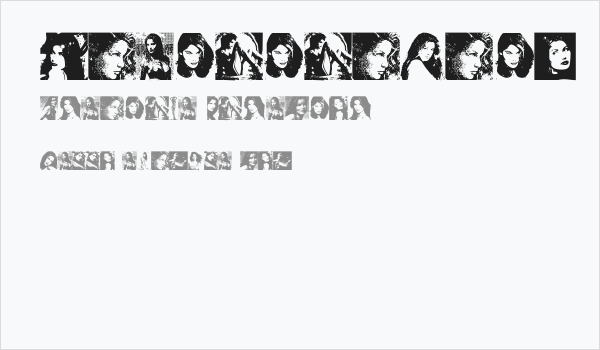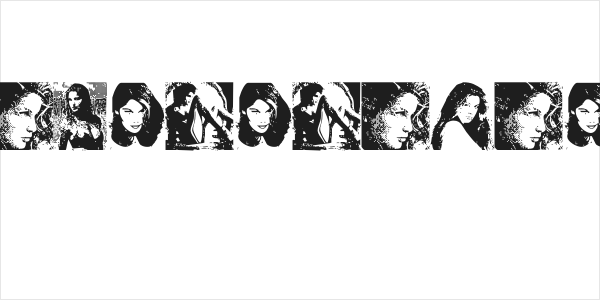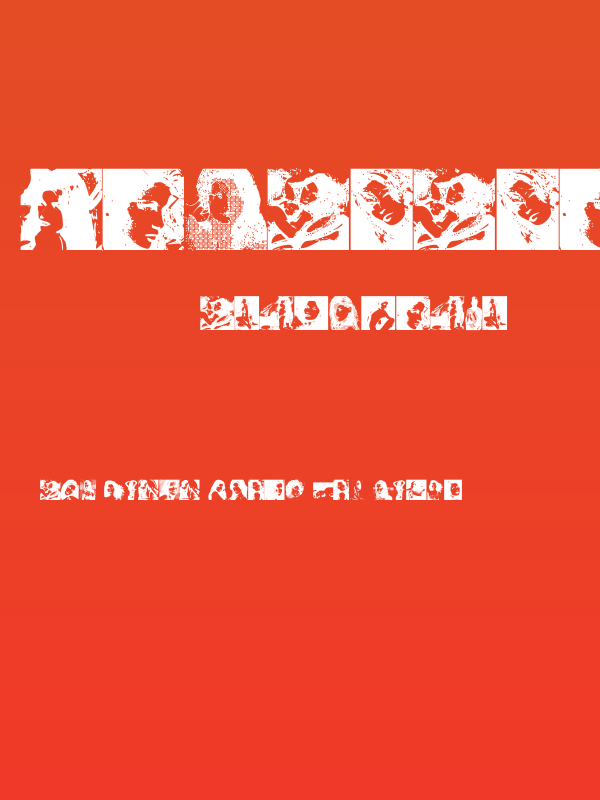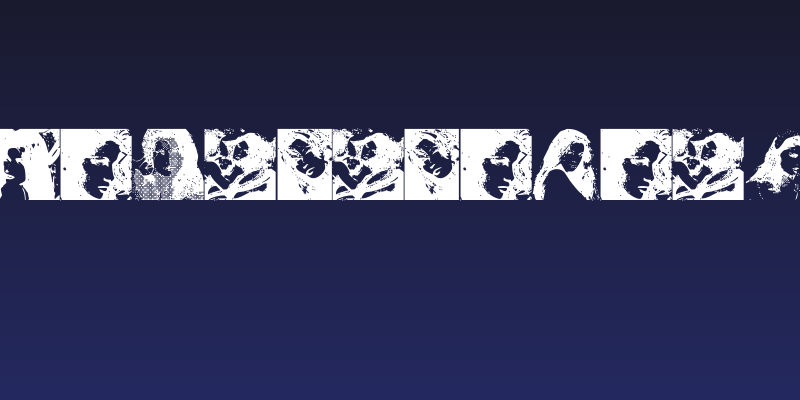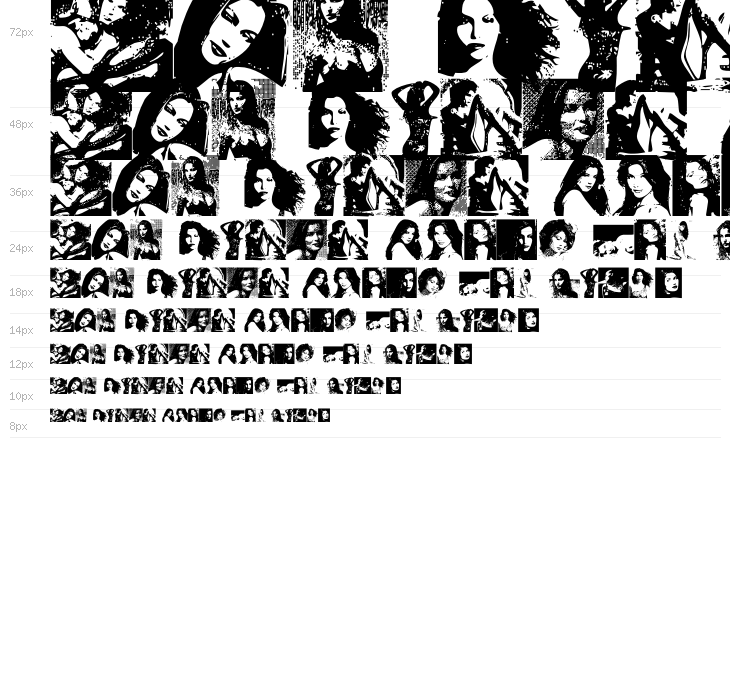
LaetitiaBats Font
LaetitiaBats Description
This font is a highly decorative and artistic typeface where each character is composed of intricate photographic images. The letters are filled with detailed black and white portraits, giving it a unique and visually striking appearance. The style is bold and eye-catching, making it suitable for creative projects that require a strong visual impact. The characters are consistent in their artistic theme, providing a cohesive look across the alphabet. This font is not suitable for body text due to its complex design but excels in decorative applications.
Use CaseLogos, Headlines, Artistic projects
Proposed ProjectsIdeal for artistic posters, album covers, and creative branding projects where a strong visual statement is needed.